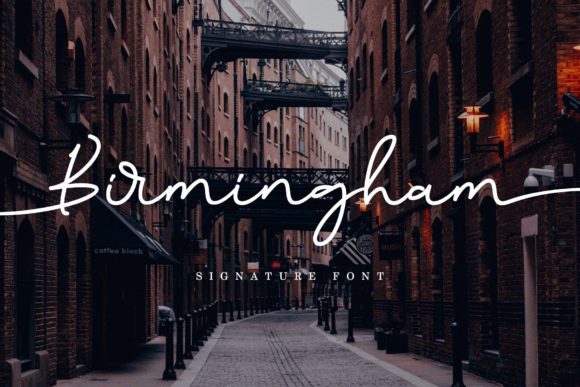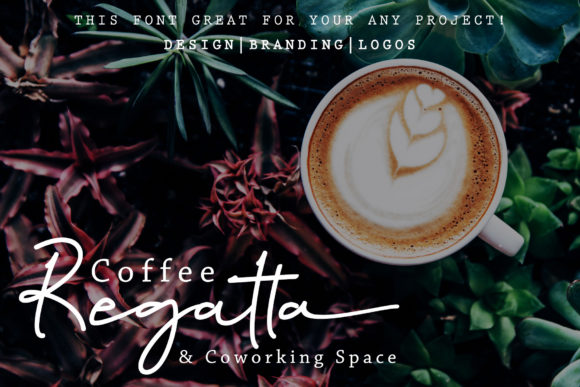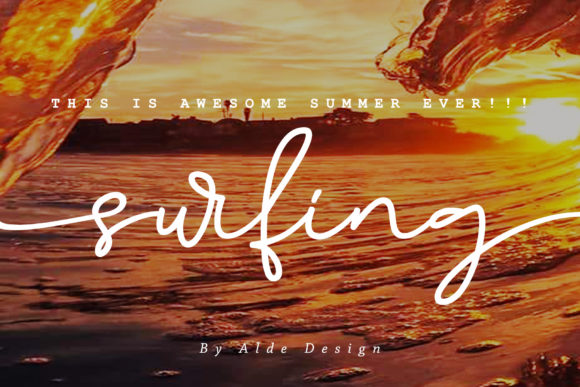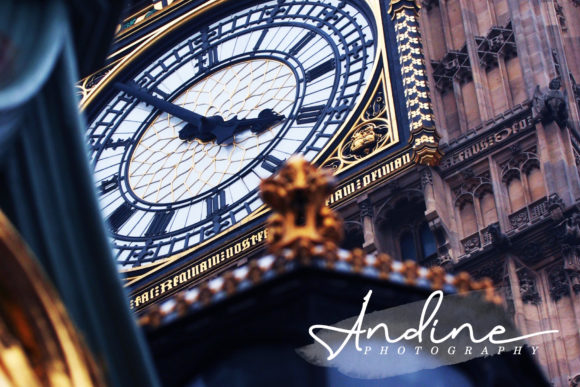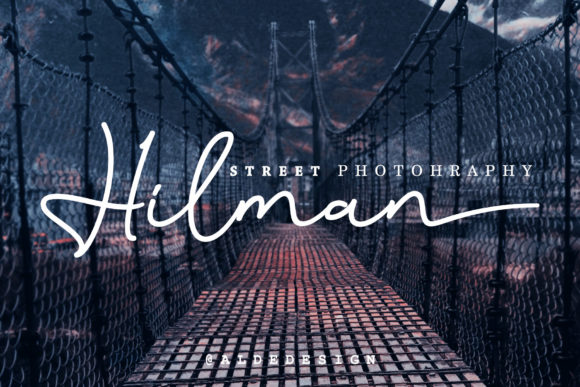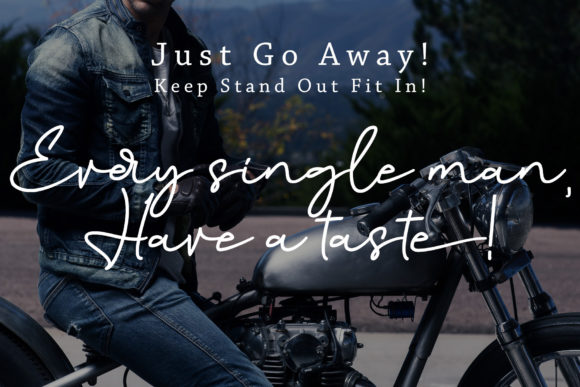
Birmingham Font
About Birmingham Font
Birmingham is a simple, yet classy signature typeface. It includes beautiful swashes, that will add an organic feel to any design project!